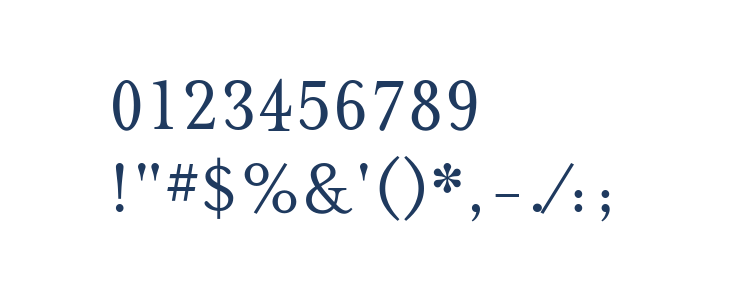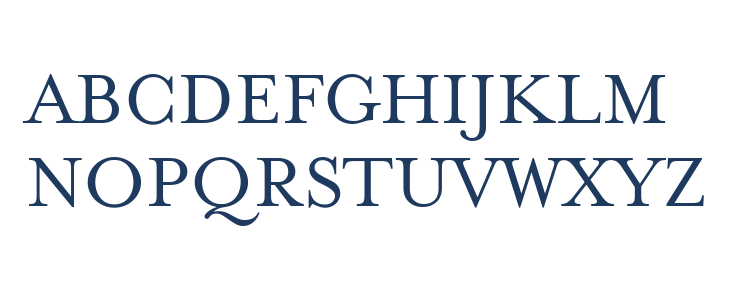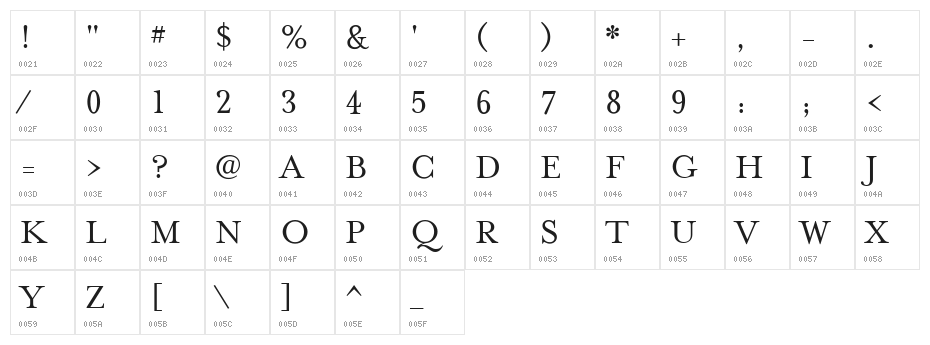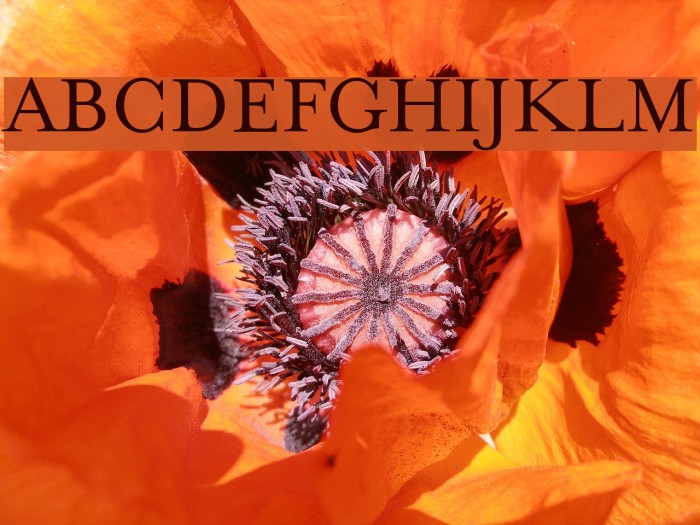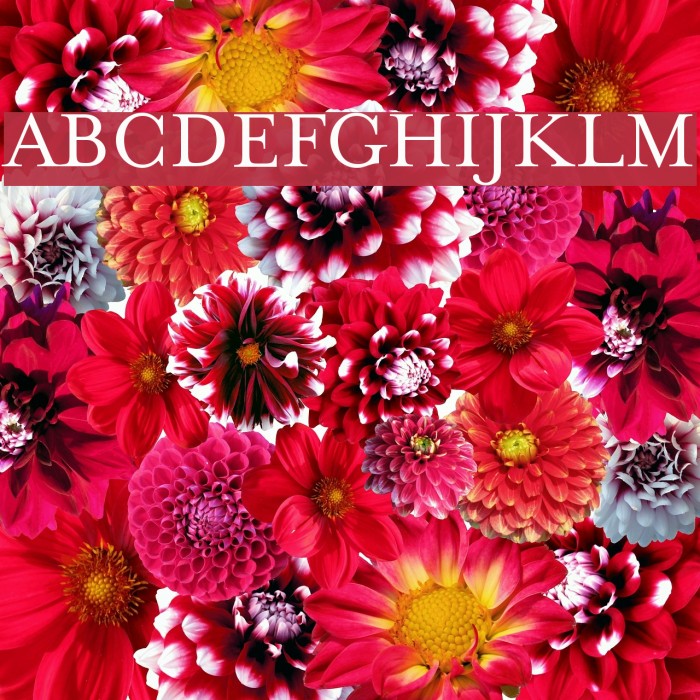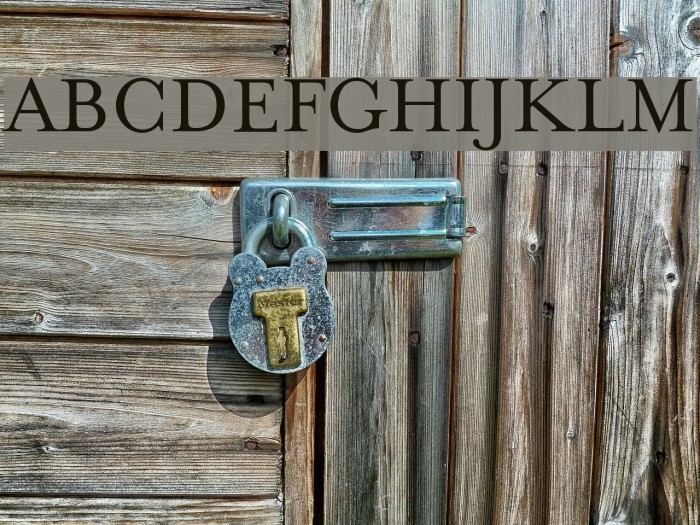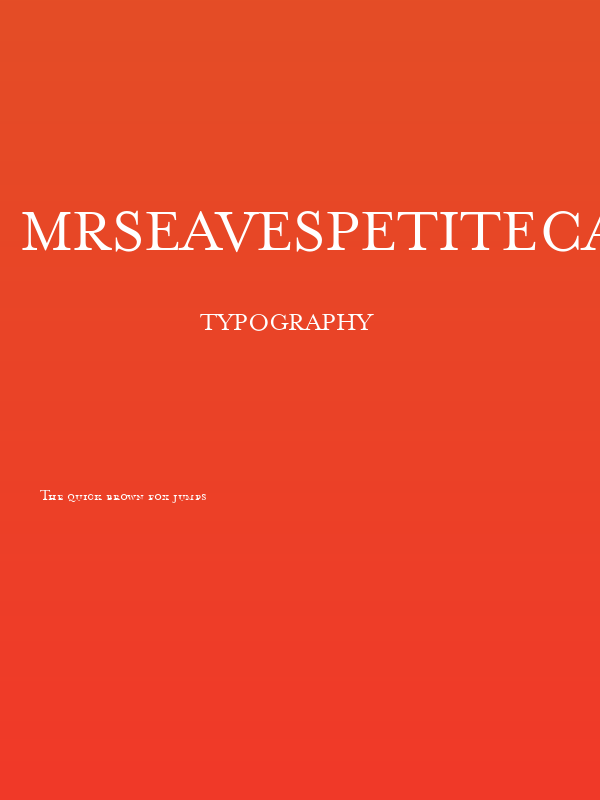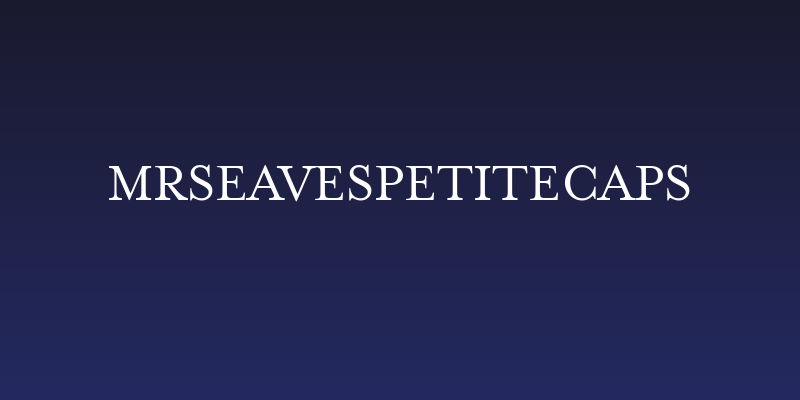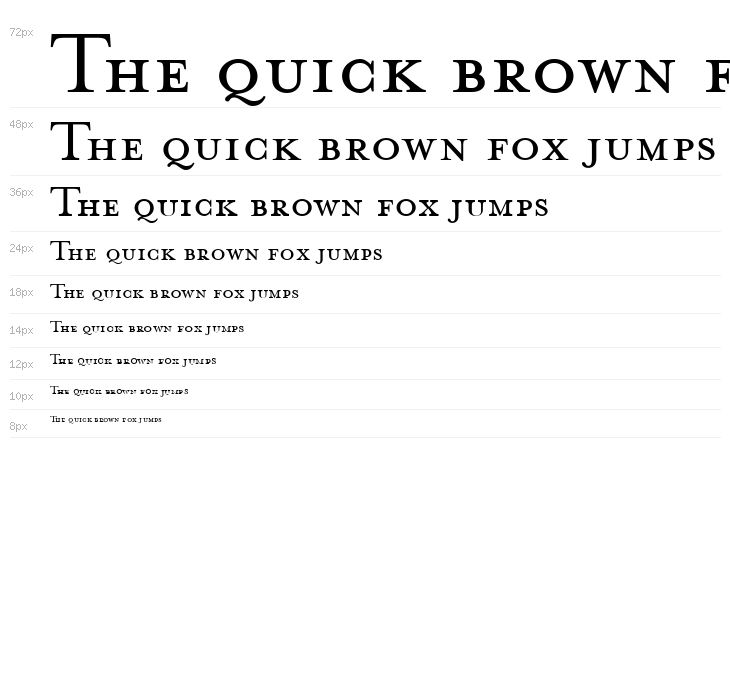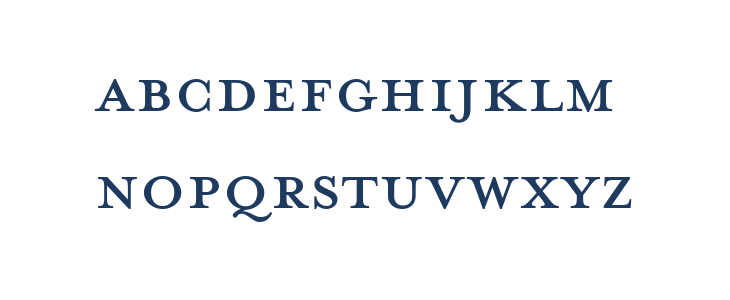
MrsEavesPetiteCaps Font
MrsEavesPetiteCaps Description
This font exudes a classic elegance with its refined serif style, characterized by its petite capital letters. The design features a balanced contrast between thick and thin strokes, giving it a sophisticated and timeless appearance. The serifs are delicately crafted, adding a touch of grace to each character. The numerals and special characters maintain the same level of detail and precision, ensuring consistency across all elements. The overall aesthetic is both traditional and versatile, making it suitable for a wide range of applications.
| Proposed Projects | Ideal for formal invitations, book covers, editorial design, and branding projects that require a touch of sophistication. |